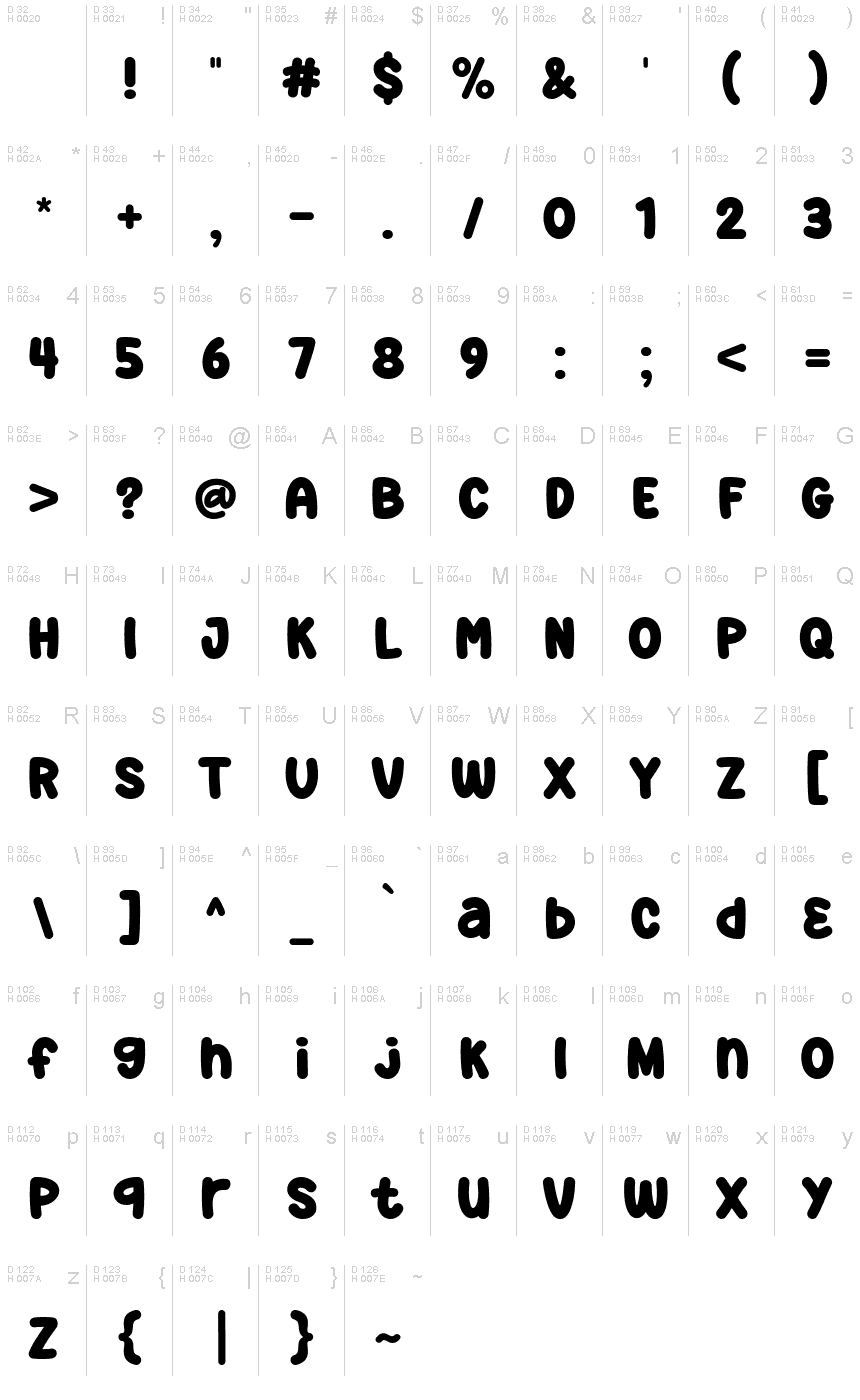
Super Fresh
Dive into the playful world of 'Super Fresh,' a display font crafted by the imaginative fsuarez913. With its bold, cartoon-inspired style, this typeface exudes a lively charm that instantly captivates and energizes your creative projects.
Super Fresh is ingeniously designed to inject fun into branding, eye-catching headlines, and whimsical advertising campaigns. Embrace its unique flair to make your designs stand out with a touch of lighthearted exuberance that speaks directly to the viewer's inner child.